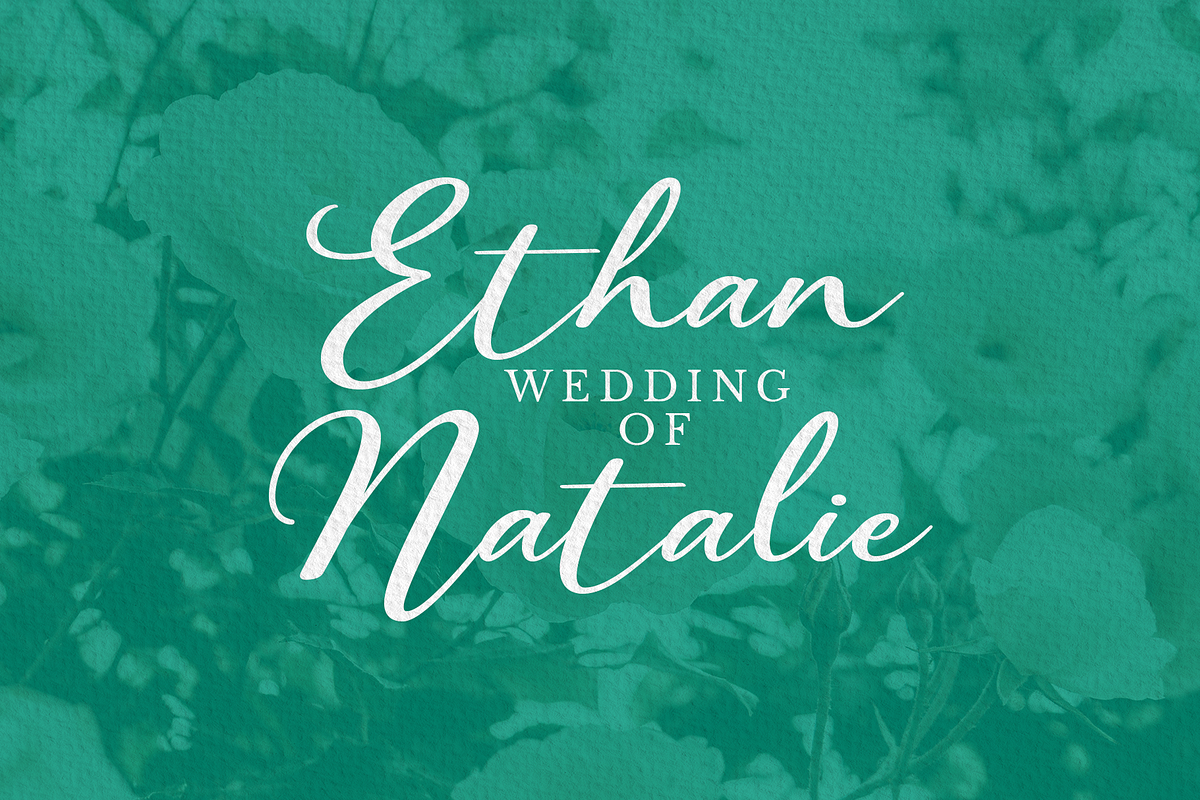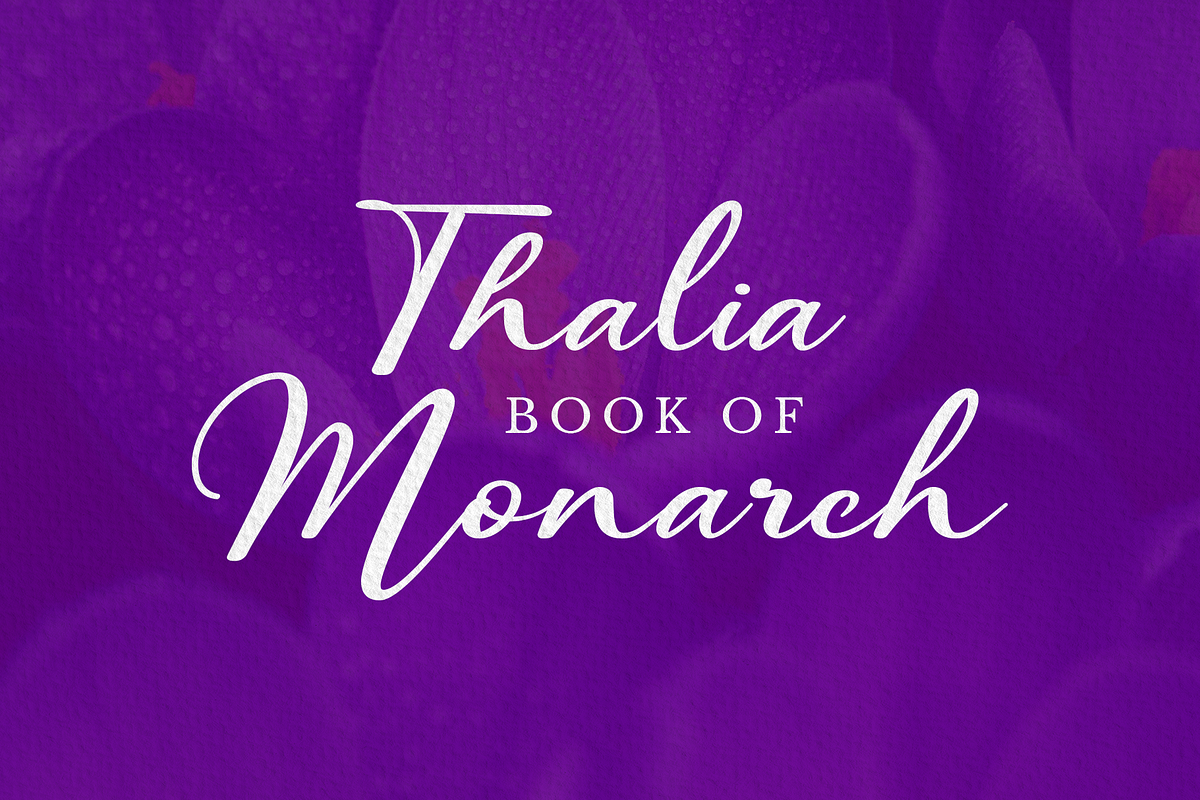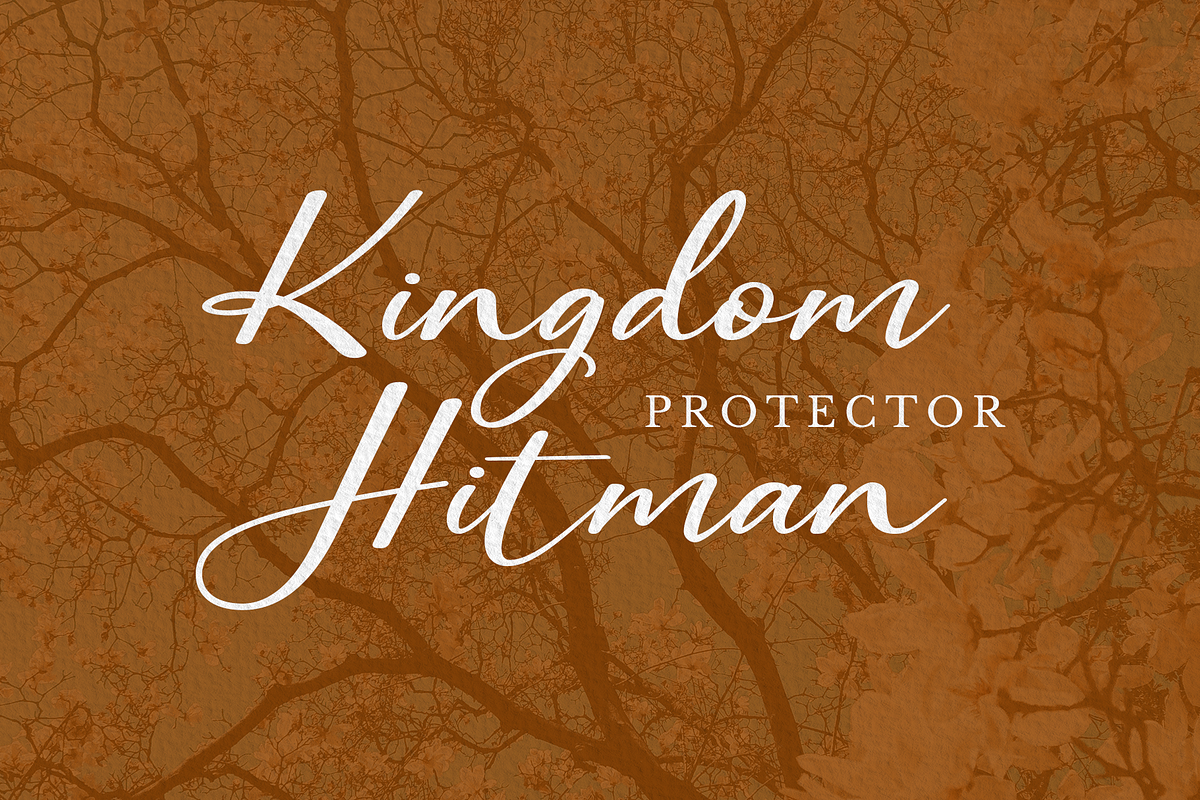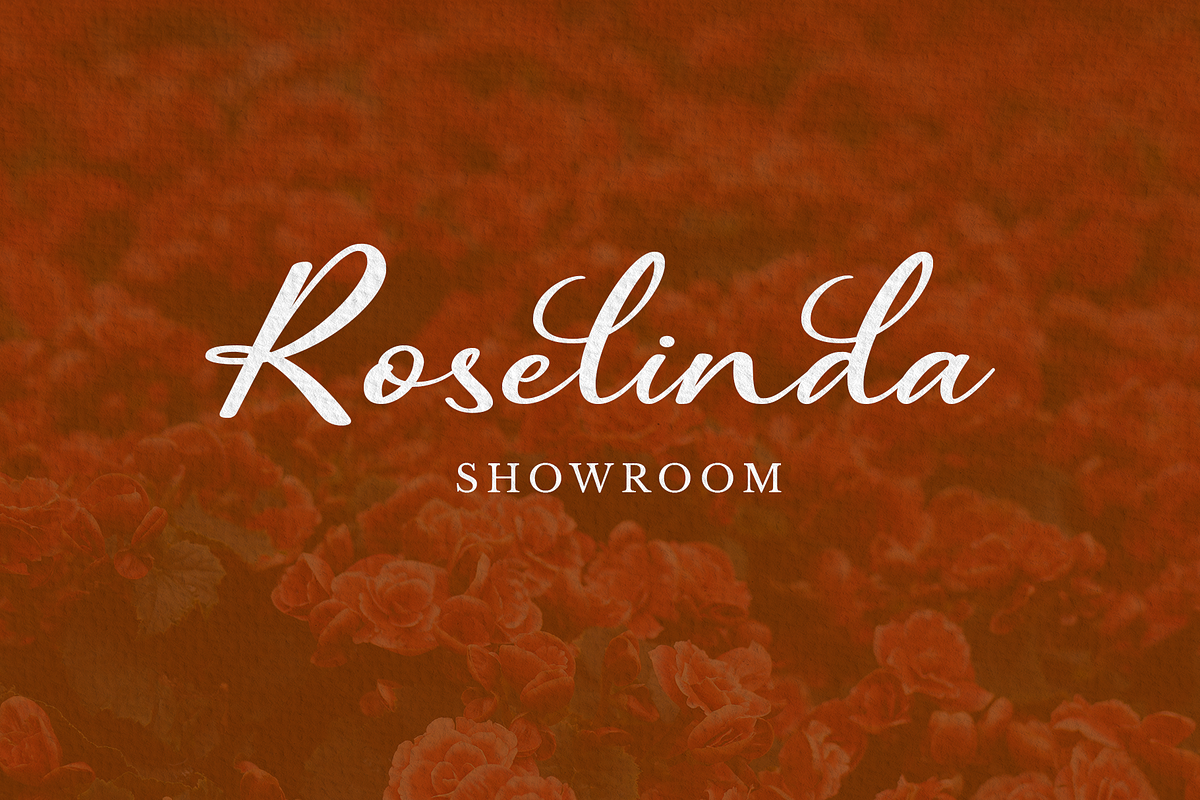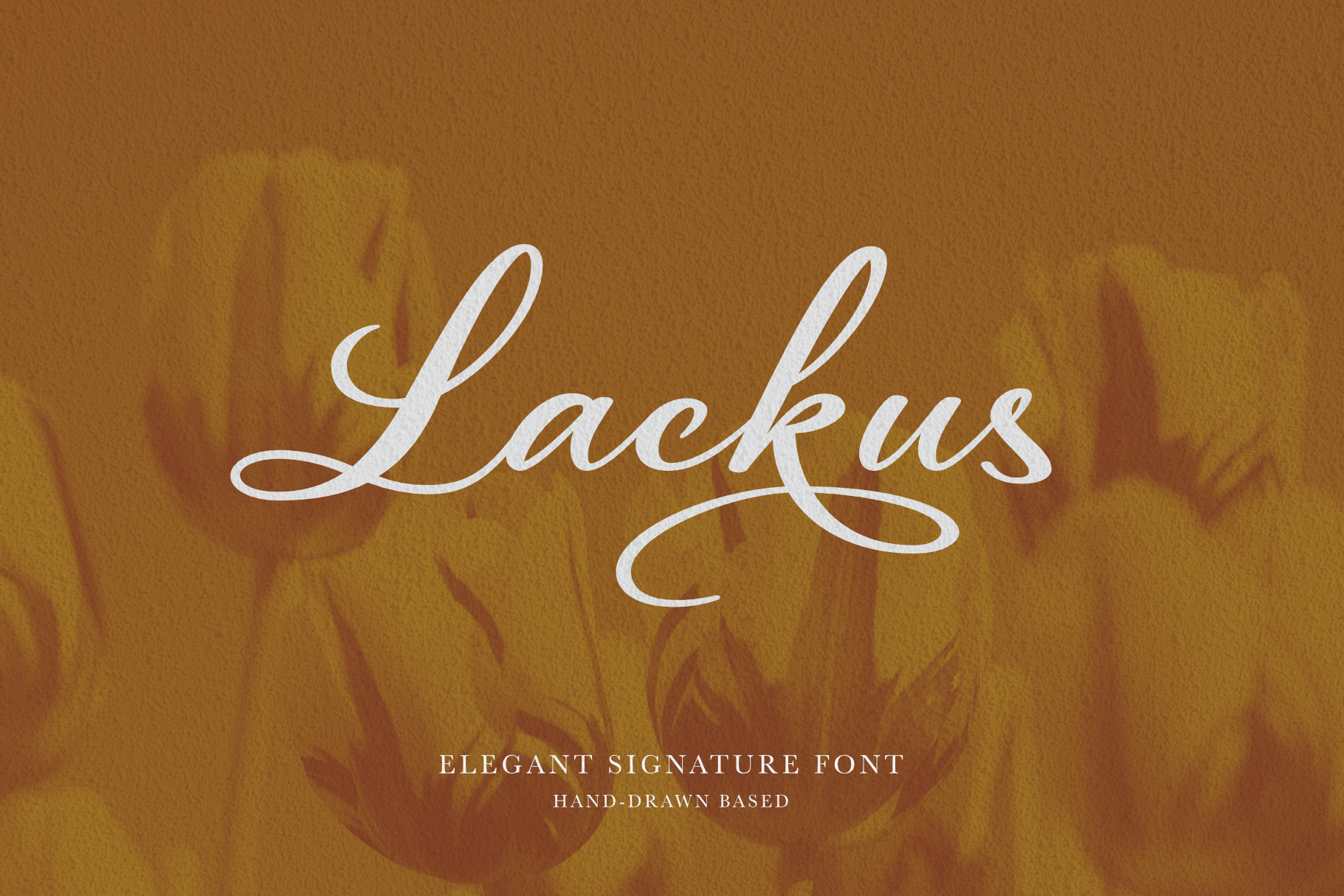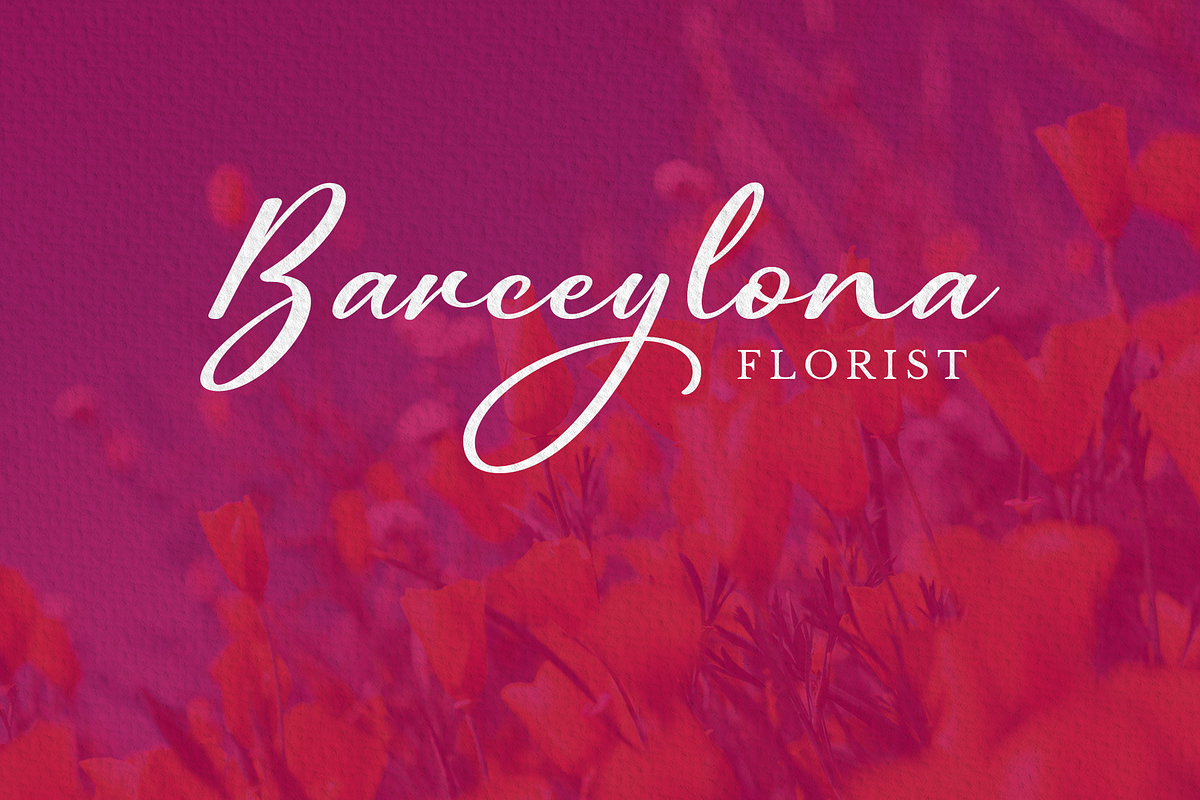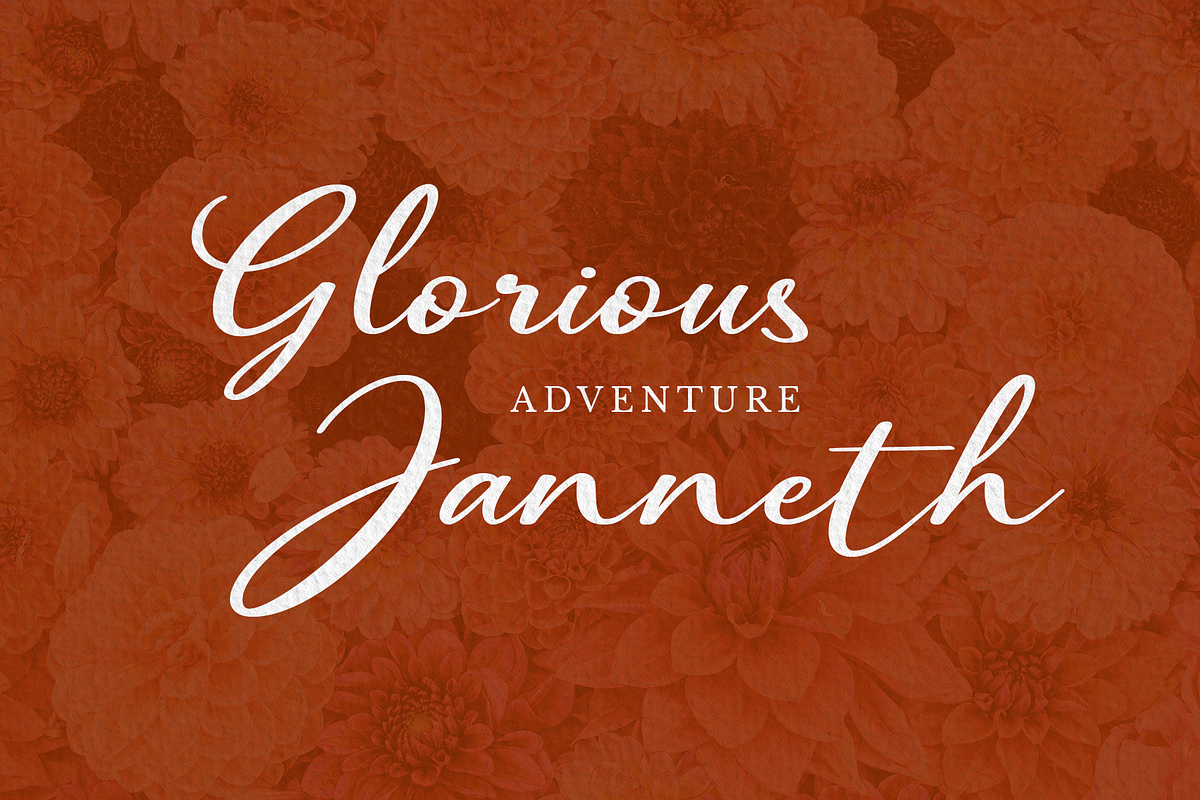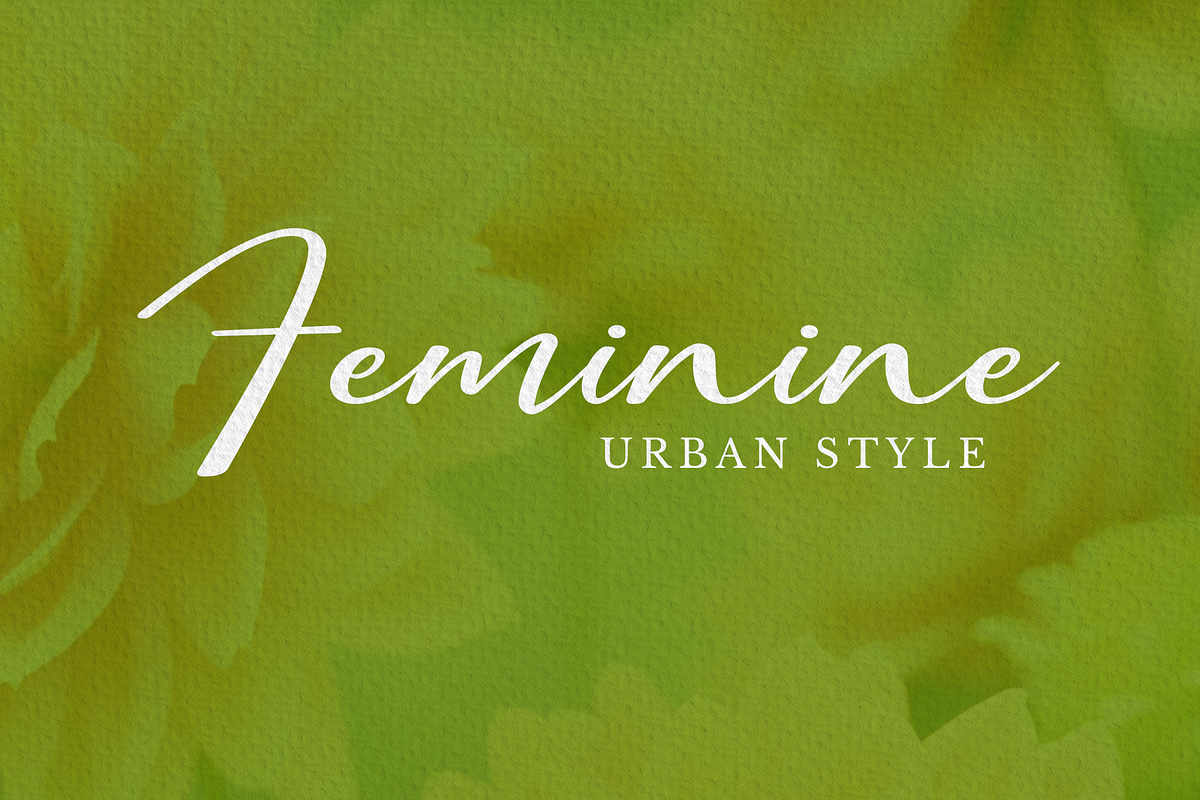
Lackus - Signature Font
Introducing our new font Lackus. An elegant signature font based by organic hand drawn. This font very suitable for your feminine projects both modern or vintage vibes. This font contains ligature tt some alternate characters and contextual alternate for Th Tl Tk and whatnots.